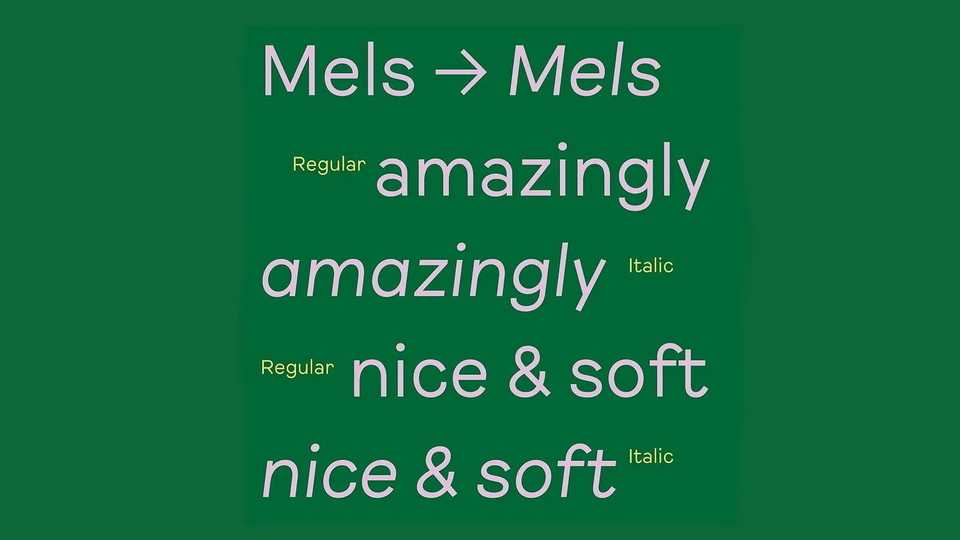
Download Mels font, a sans serif typeface with a rigorous geometry, which nevertheless has its own inconsistencies which echo the individuality in the system. Mels is human and benevolent, ideal for announcing good news in these times of uncertainty.
Designer: Quentin Barba